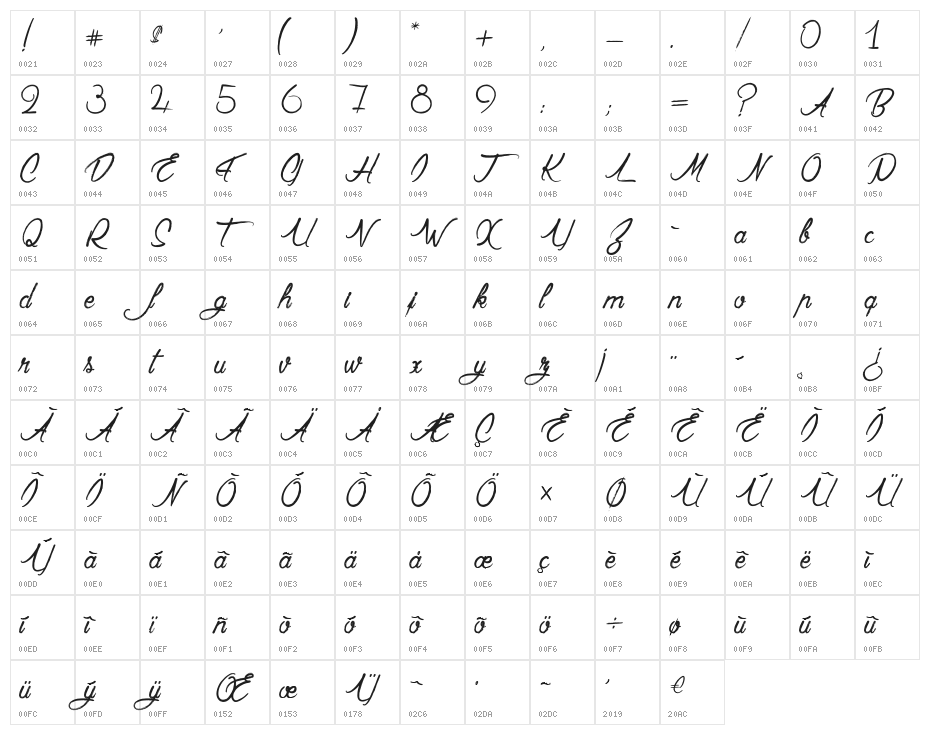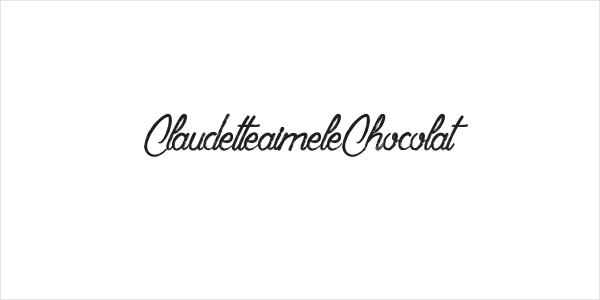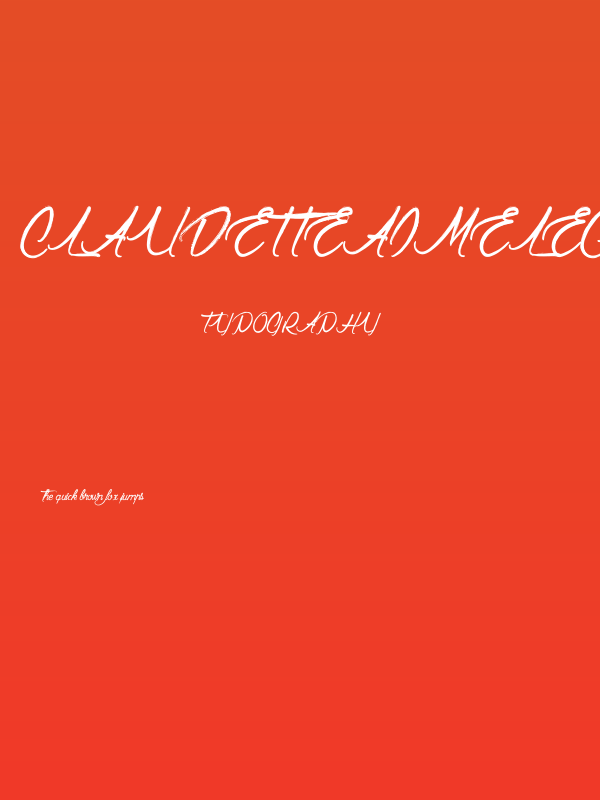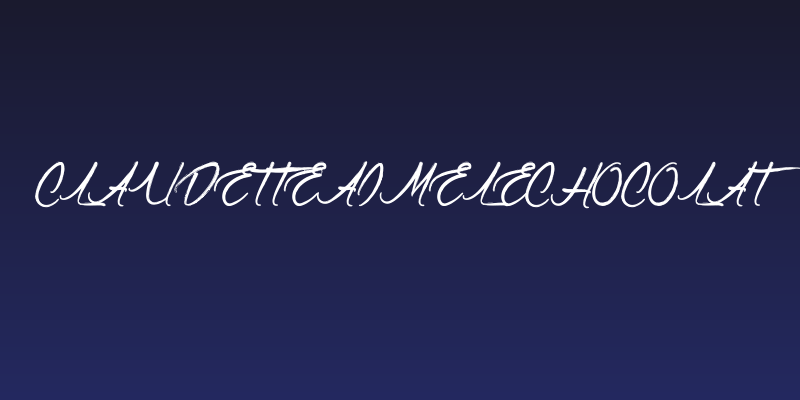
ClaudetteaimeleChocolat Font
ClaudetteaimeleChocolat Description
This font exhibits a dynamic and expressive script style, characterized by its fluid, cursive strokes and elegant flourishes. The uppercase letters are bold and sweeping, with a sense of movement that suggests a handwritten quality. Lowercase letters maintain a consistent flow, with some characters featuring distinctive loops and curves that add to the overall charm. The numerals are clear and legible, maintaining the script's stylistic flair. Special characters are well-integrated, matching the font's overall aesthetic. This font's artistic nature makes it suitable for creative and decorative uses.
| Proposed Projects | Ideal for wedding invitations, greeting cards, personal branding, and artistic projects requiring a touch of elegance and personality. |